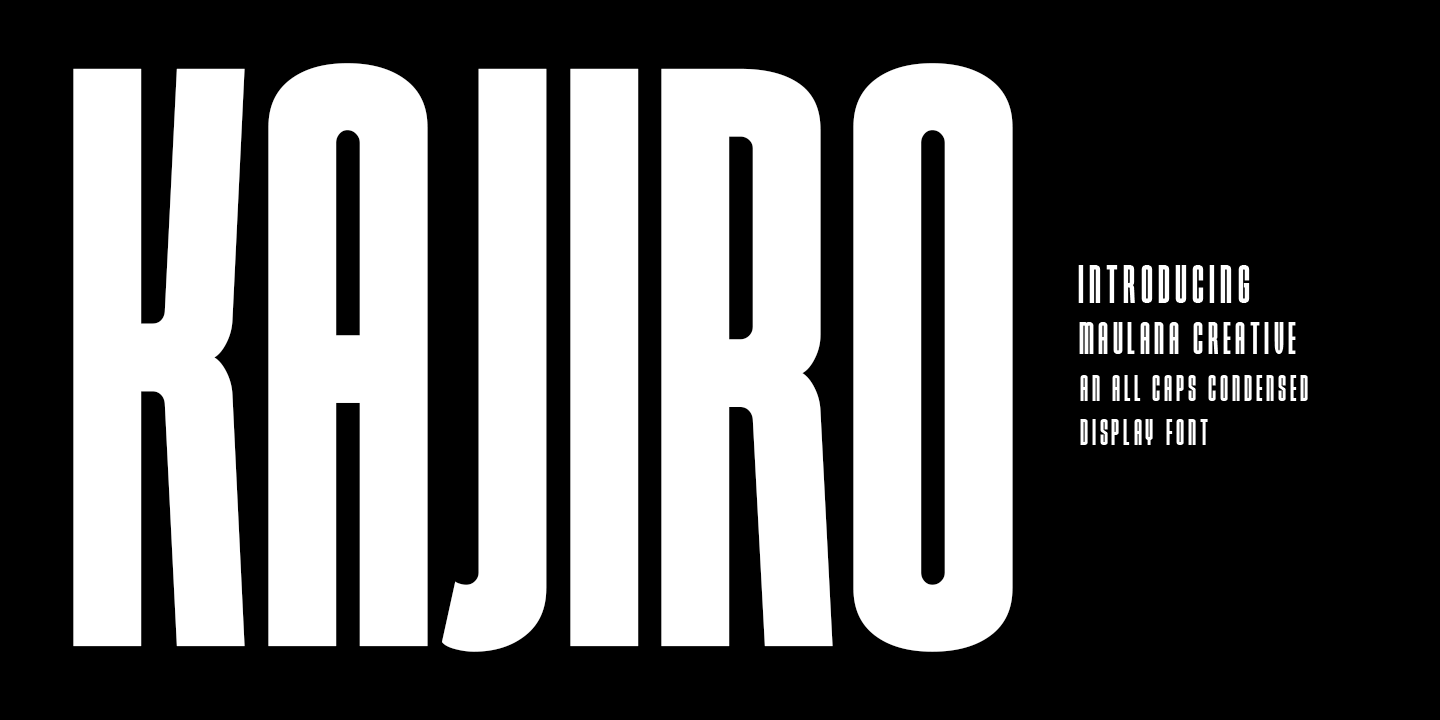
Kajiro Font is a bold and distinctive typeface, perfect for designs that demand a strong, impactful, and often rugged or industrial aesthetic. Imagine it making a powerful statement on the branding for an adventure gear company, providing a clear and sturdy presence for construction firm signage, or adding a raw, authentic edge to posters for a music festival. Its robust forms and often condensed structure make it exceptionally effective for striking logos, large-format displays, and any digital or print media where high visibility and a resilient personality are key. From impactful advertising campaigns to packaging for artisanal craft goods, this font delivers a confident and memorable visual punch.
What makes Kajiro Font so exciting is its ability to blend raw power with a modern, no-nonsense attitude. It's often characterized by strong, geometric letterforms, a solid baseline, and a sense of unyielding reliability. This isn't a subtle font; it's a typeface designed to stand out and convey a message of strength, durability, and authenticity. It projects an image of robustness and straightforwardness, making it an ideal choice for brands that want to communicate trustworthiness and an unpretentious, hands-on approach. Its clean yet assertive structure ensures high legibility, even when used for dramatic effect.
The Kajiro Font family typically offers a focused yet impactful range of weights, designed to maximize its strong presence and versatility. While it might not have the extensive variations of a large text family, you can usually expect to find options such as Regular, Medium, and Bold, often accompanied by corresponding italic versions. This selection is carefully curated to allow designers to create strong visual hierarchies, emphasizing key information and maintaining a cohesive, powerful style across different applications. These variations help ensure that the font maintains its distinctive and assertive character whether used for prominent headlines or impactful subheadings.